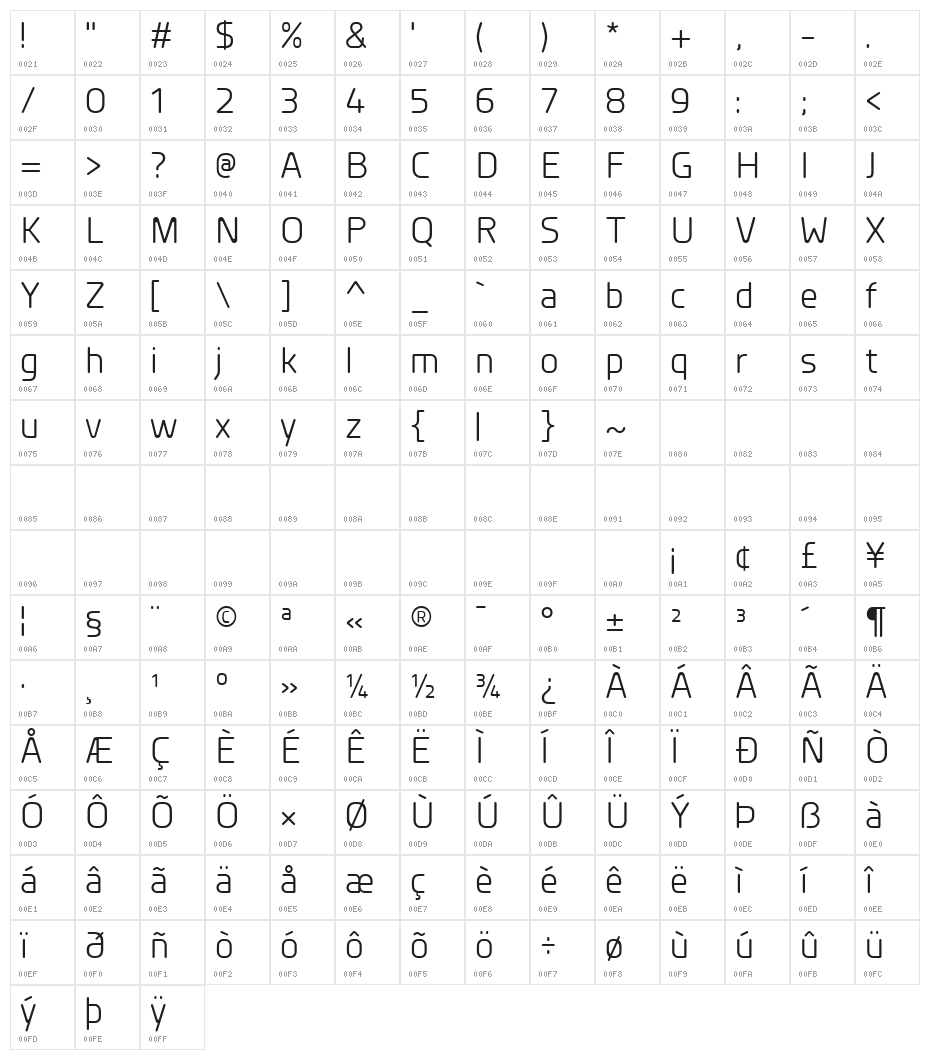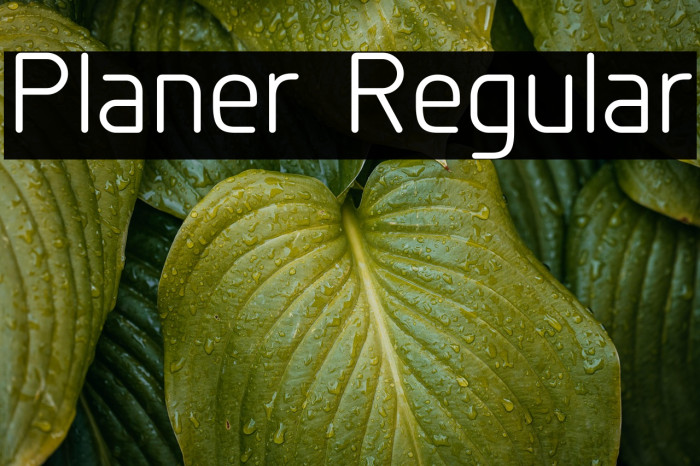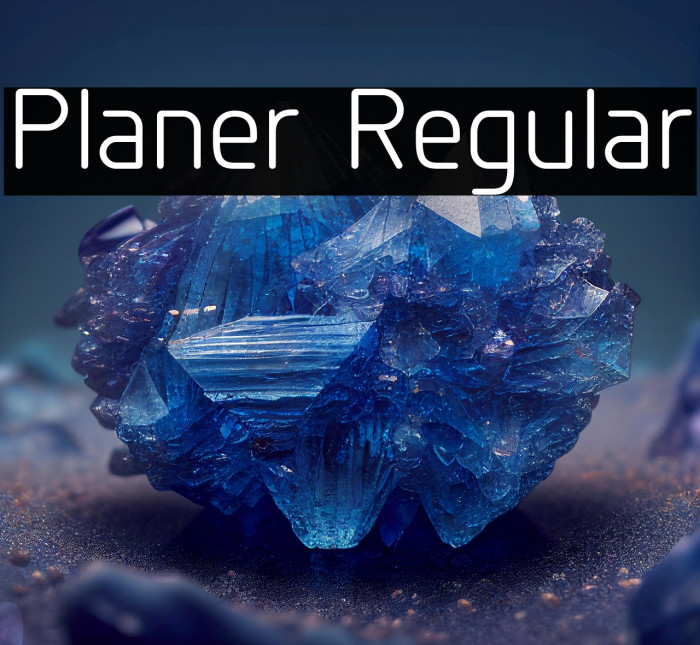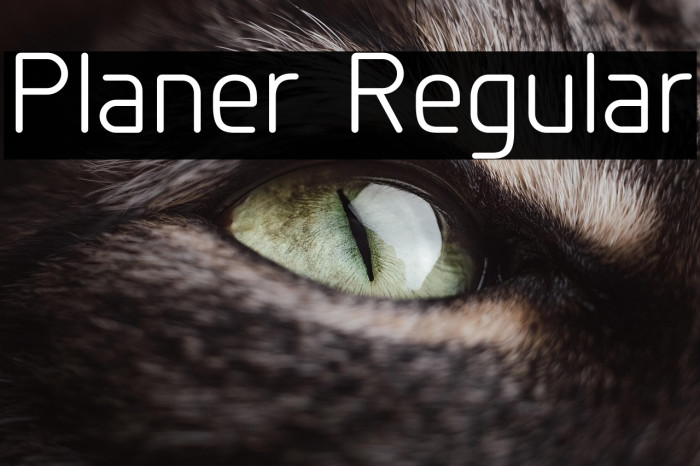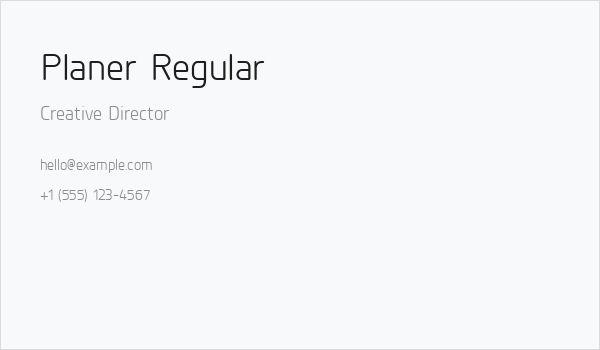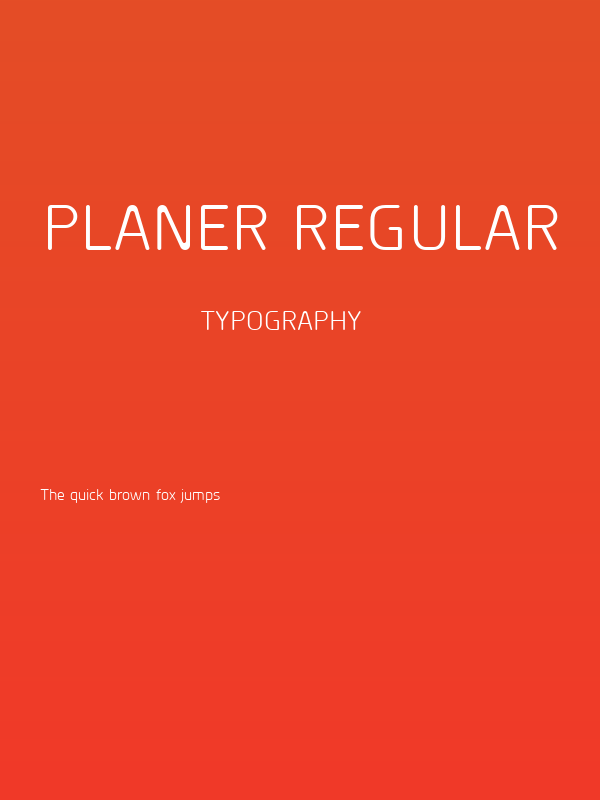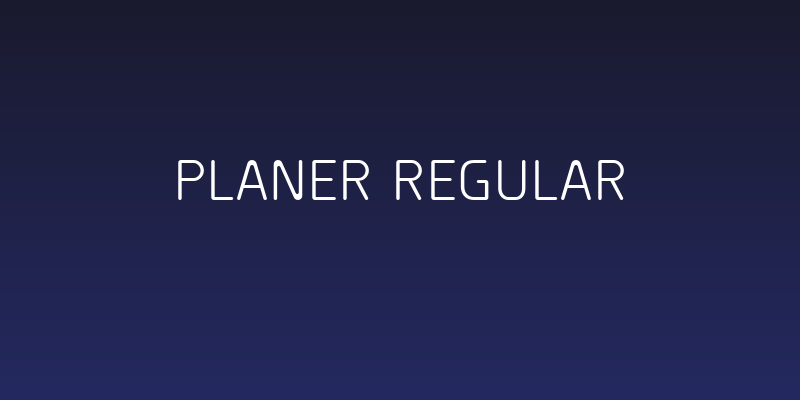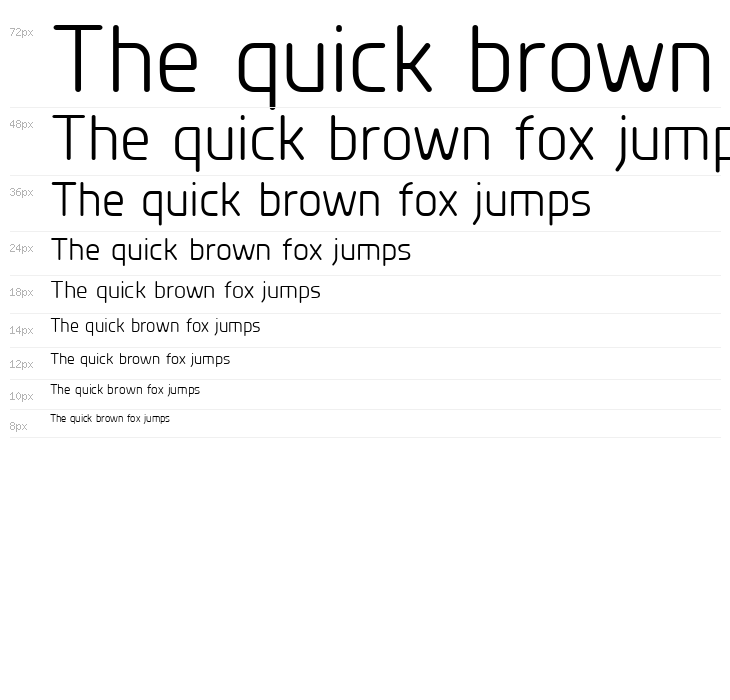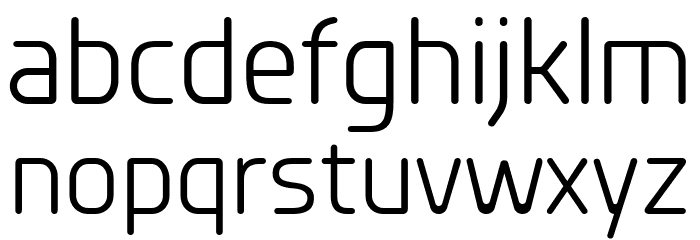
Planer Regular Font
Planer Regular Description
This font features a clean and modern design with a geometric structure. The characters are evenly spaced, providing a balanced and harmonious appearance. The strokes are consistent in width, giving it a uniform look. The rounded edges add a touch of softness, making it approachable and friendly. It maintains clarity and legibility across various sizes, making it versatile for different applications. The numerals and special characters are designed to match the overall aesthetic, ensuring a cohesive look throughout.
| Proposed Projects | Ideal for tech branding, user interfaces, signage, and modern editorial design. |